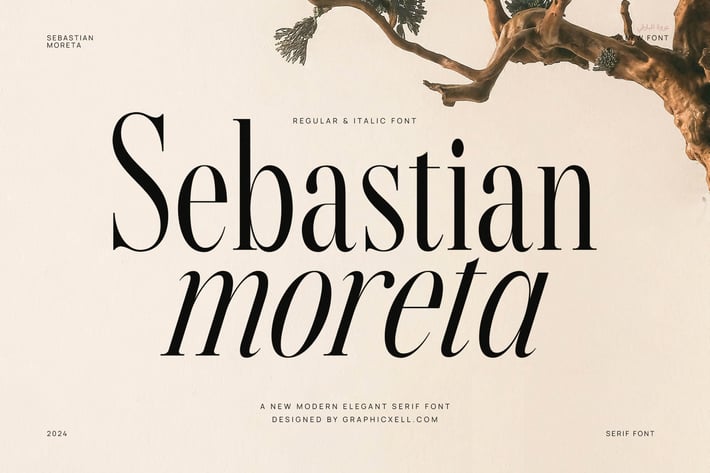
Sebastian Moreta Family Serif Font Text
Sebastian Moreta Elegant Serif Font is a modern font that comes with both regular and italic styles. The blend of regular and italic styles becomes a perfect combination.
Even though it doesn’t offer special ligature, this font emphasizes elegance and sophistication. The elegant style can be seen from the upright letterforms.
While the italic style brings a classic nuance. Everything is very neat, making the font even more impressive.
The Sebastian Moreta Elegant Serif Font is crafted with small tails that are very pointed and sharp. Moreover, the smooth curves make this serif font more eye-catching.
The difference in the line thickness becomes a real form of elegance. So, it is easy to say that this font is useful for those who consider typography in their jobs.
Formal works or projects will be perfect with this font including books, journals, magazines, etc. Hope you like and enjoy the Sebastian Moreta Elegant Serif Font.